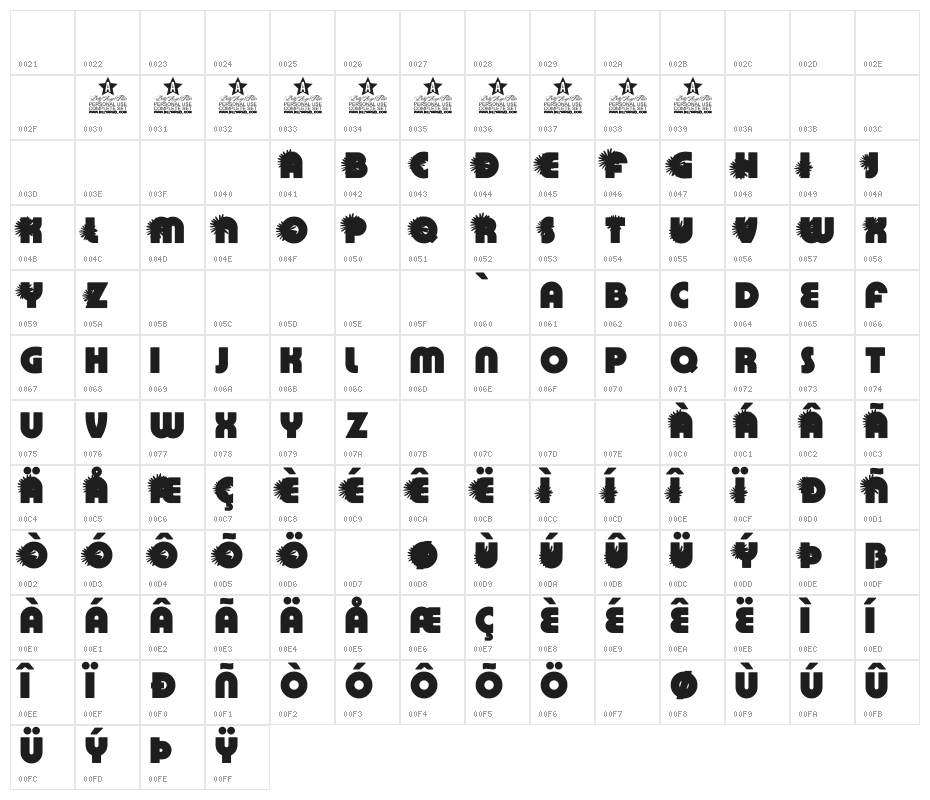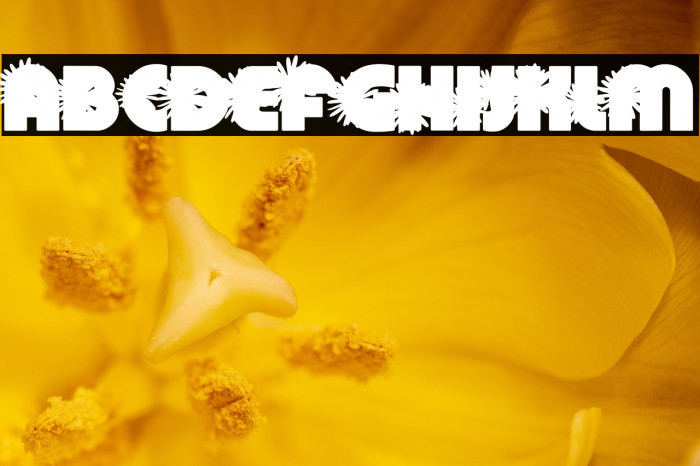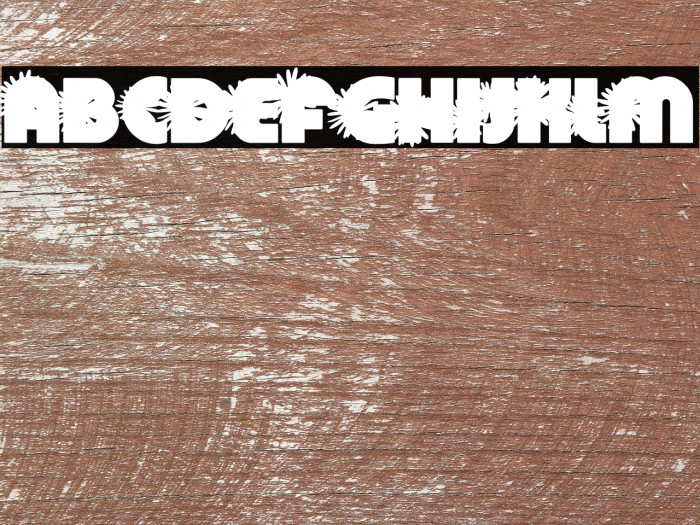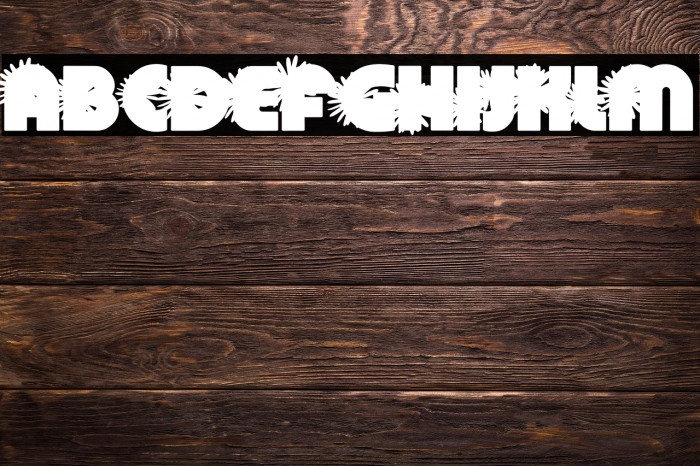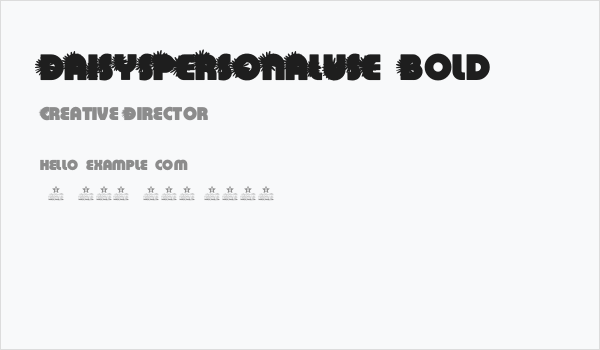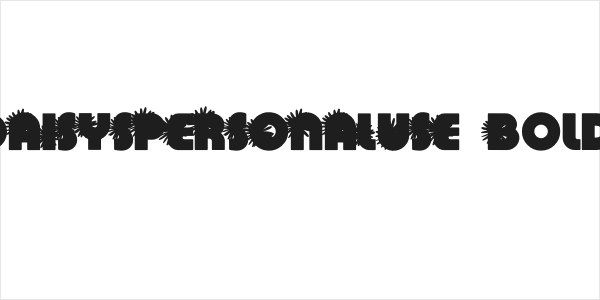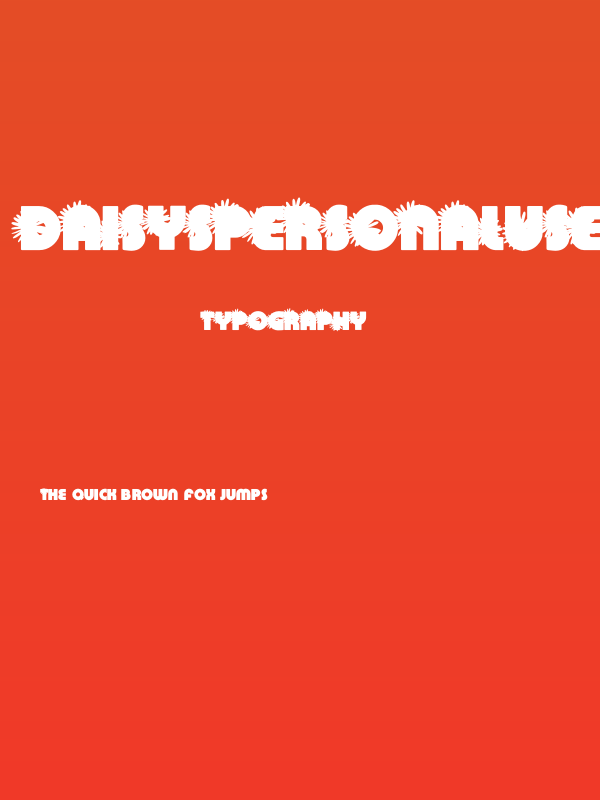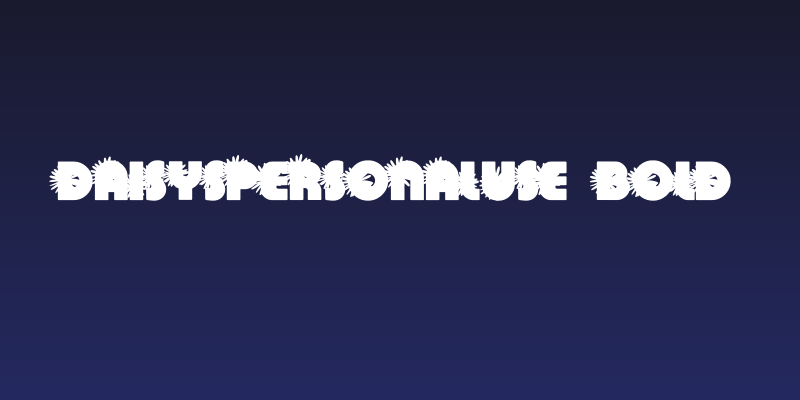
DAISYSPERSONALUSE-Bold Font
DAISYSPERSONALUSE-Bold Description
This bold and decorative font features a unique design with floral elements integrated into the letterforms, creating a playful and eye-catching appearance. The uppercase letters are adorned with daisy-like patterns, adding a whimsical touch to the overall style. The font maintains a consistent weight and width, ensuring readability while still offering a distinct visual appeal. Its bold nature and decorative elements make it ideal for projects that require a standout typeface with a touch of nature-inspired creativity.
| Proposed Projects | Perfect for greeting cards, event invitations, posters, and branding projects that require a playful and nature-inspired aesthetic. |